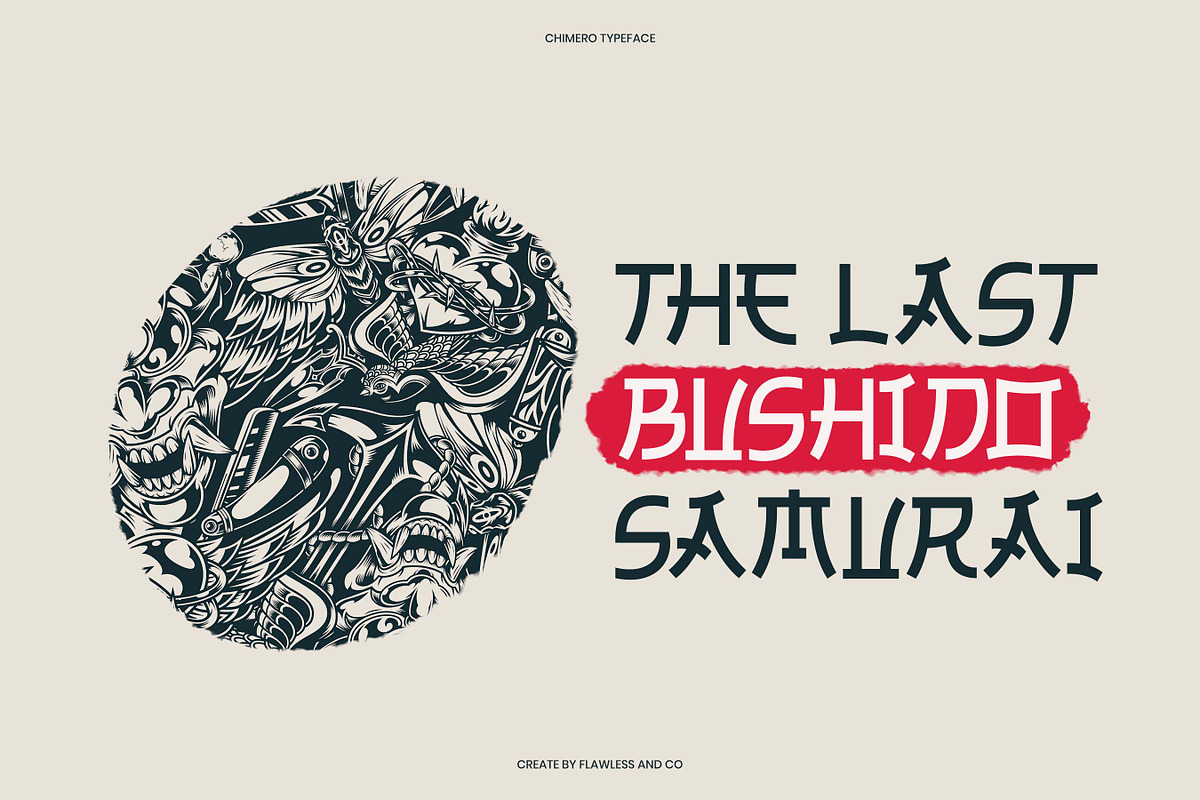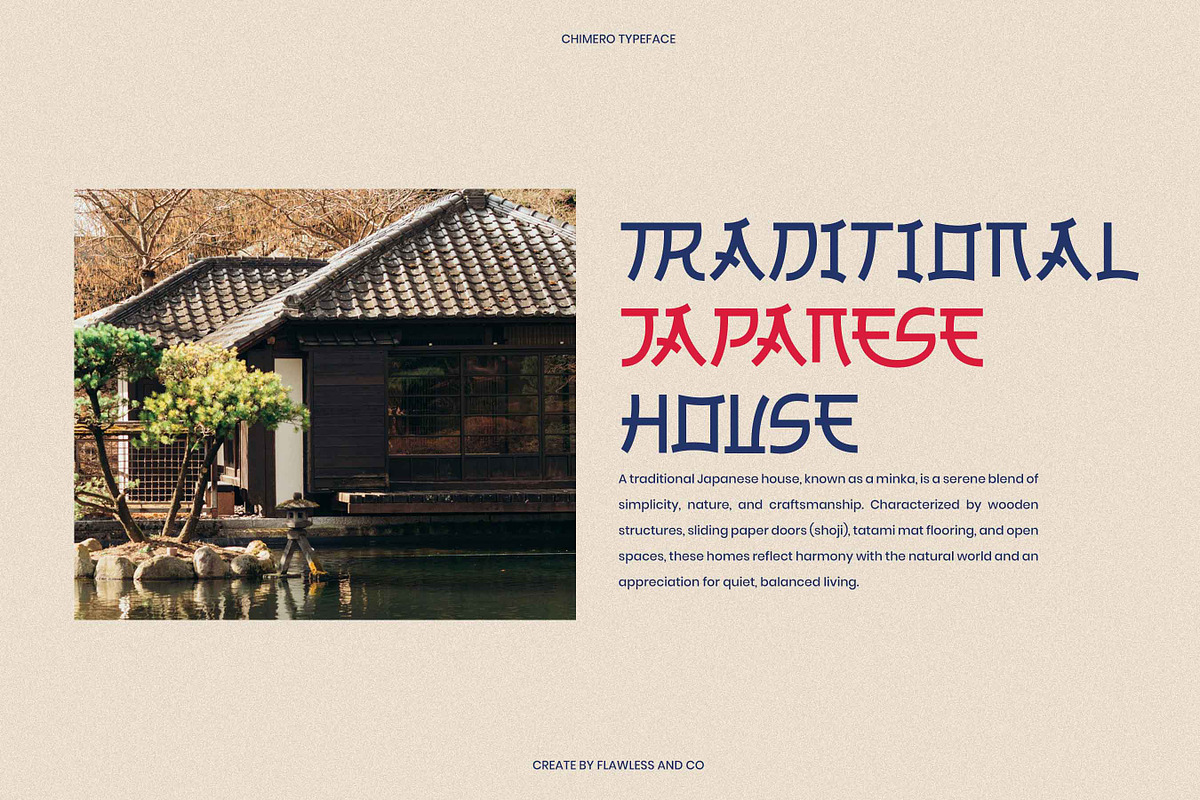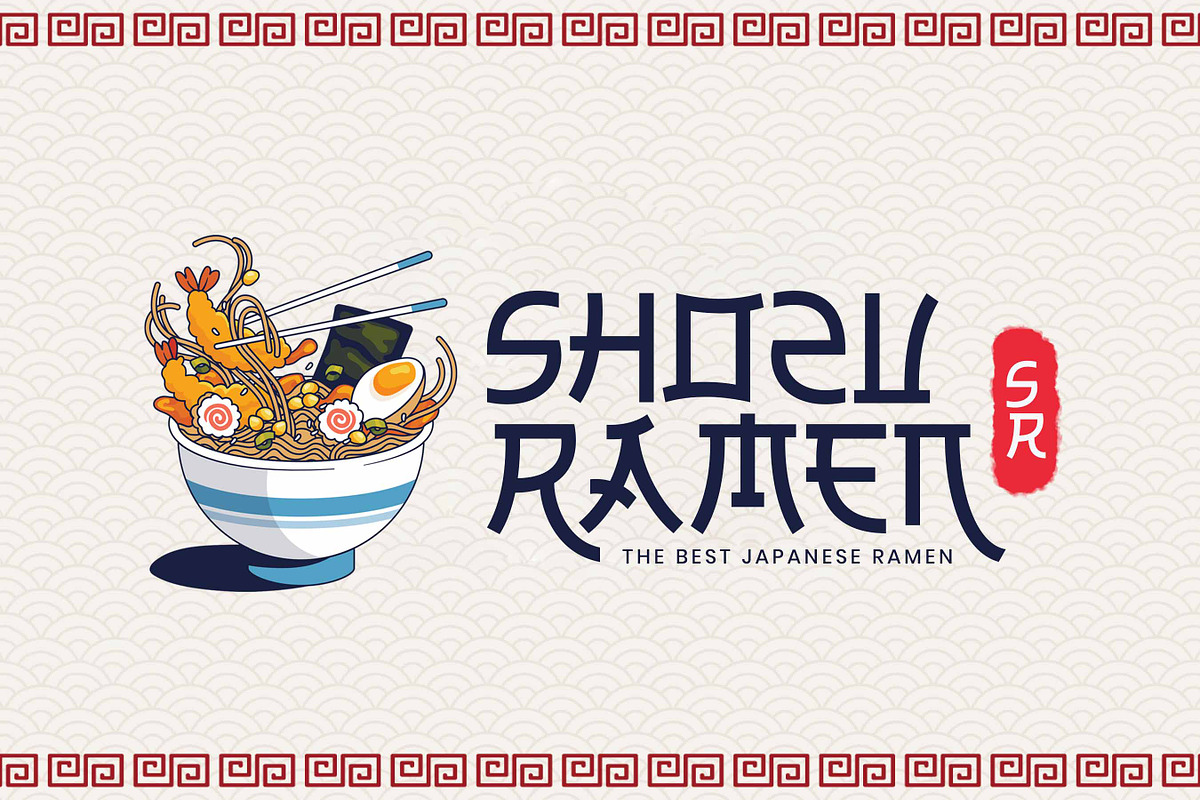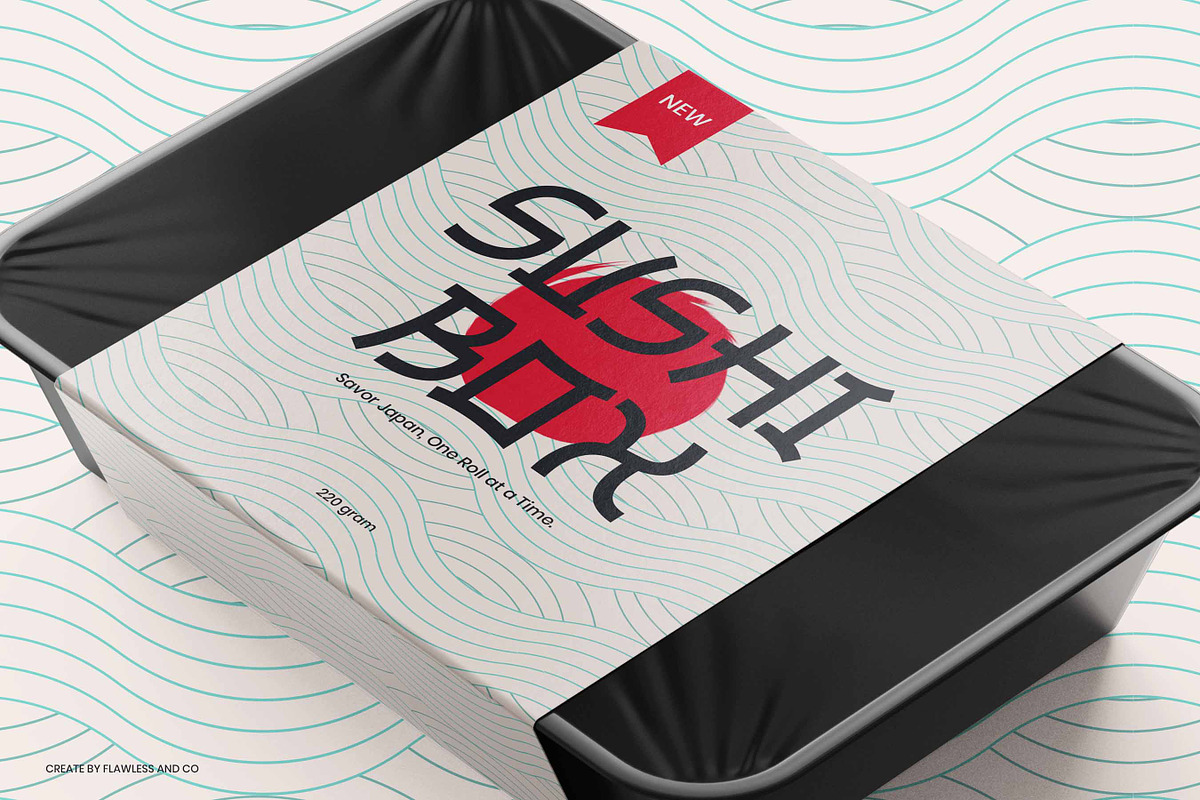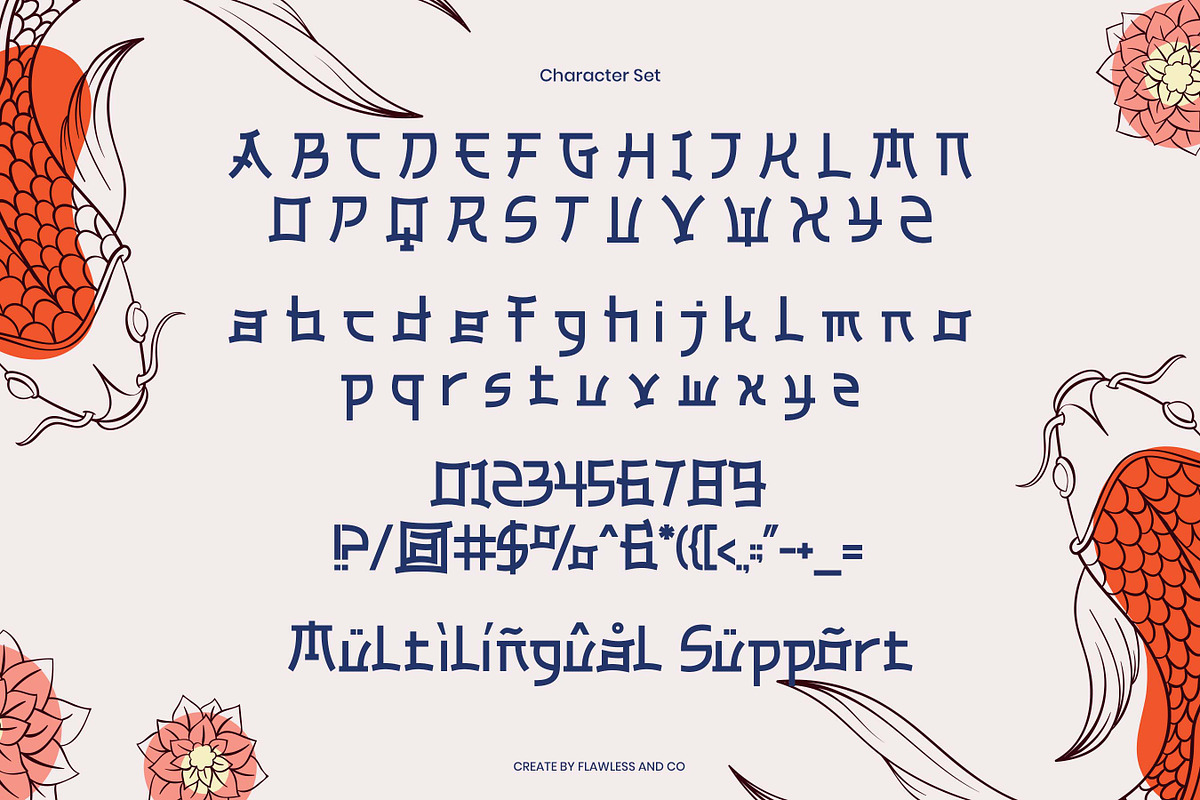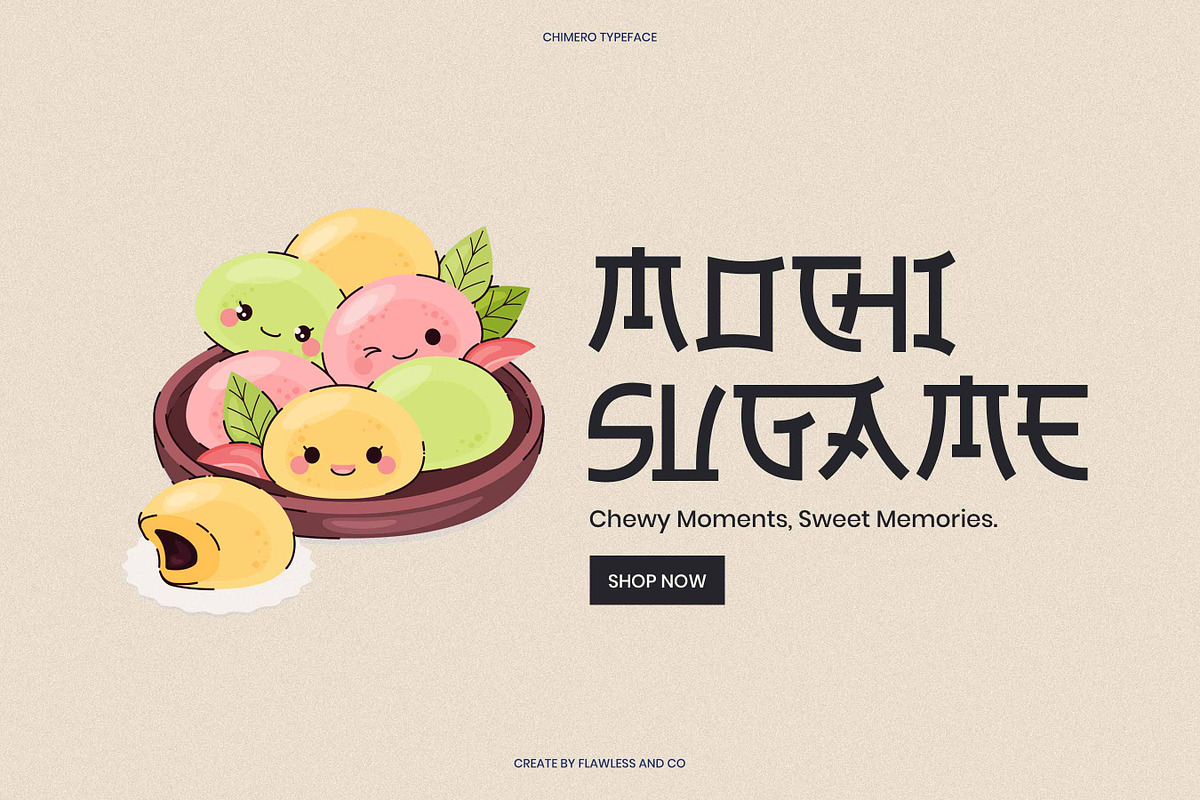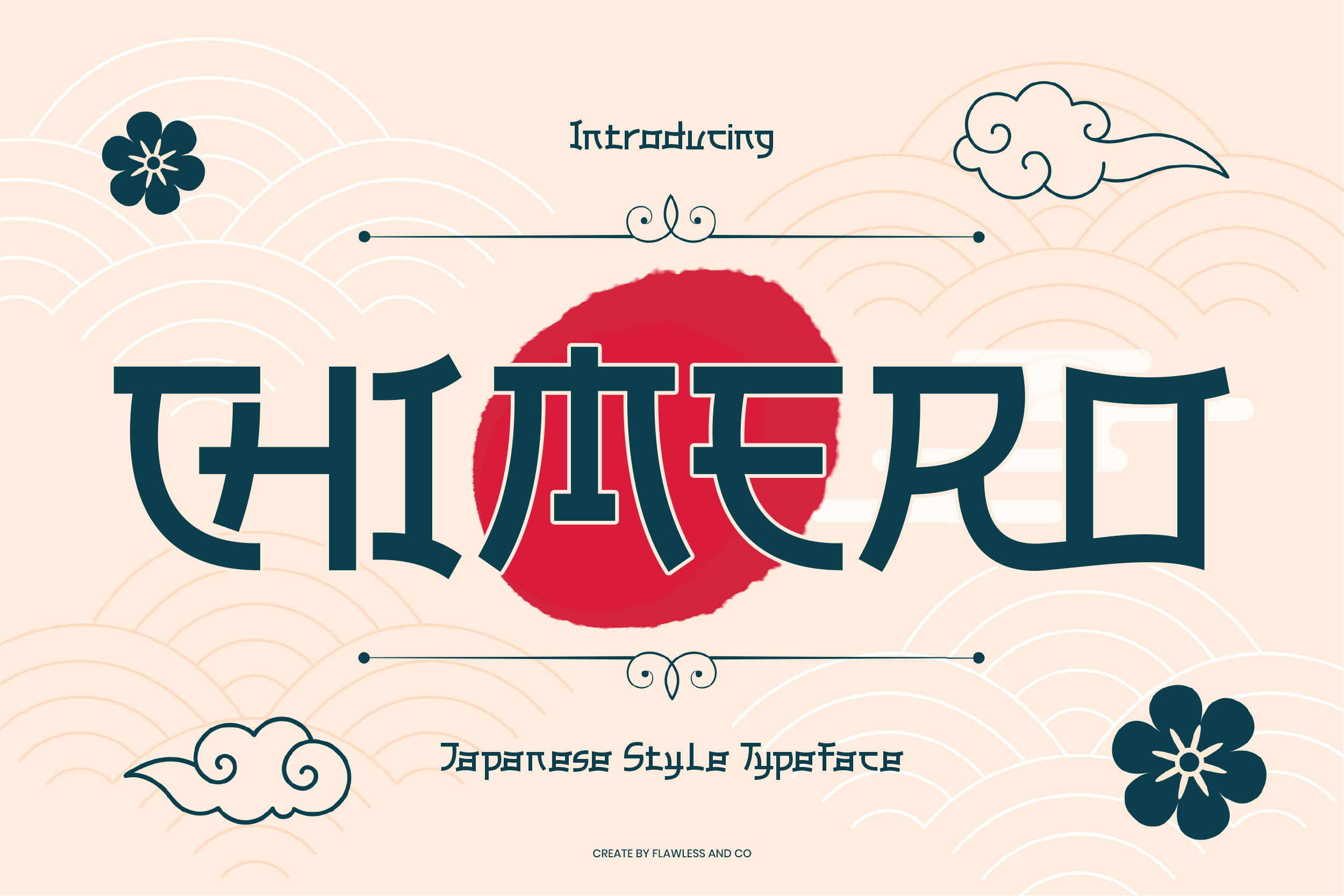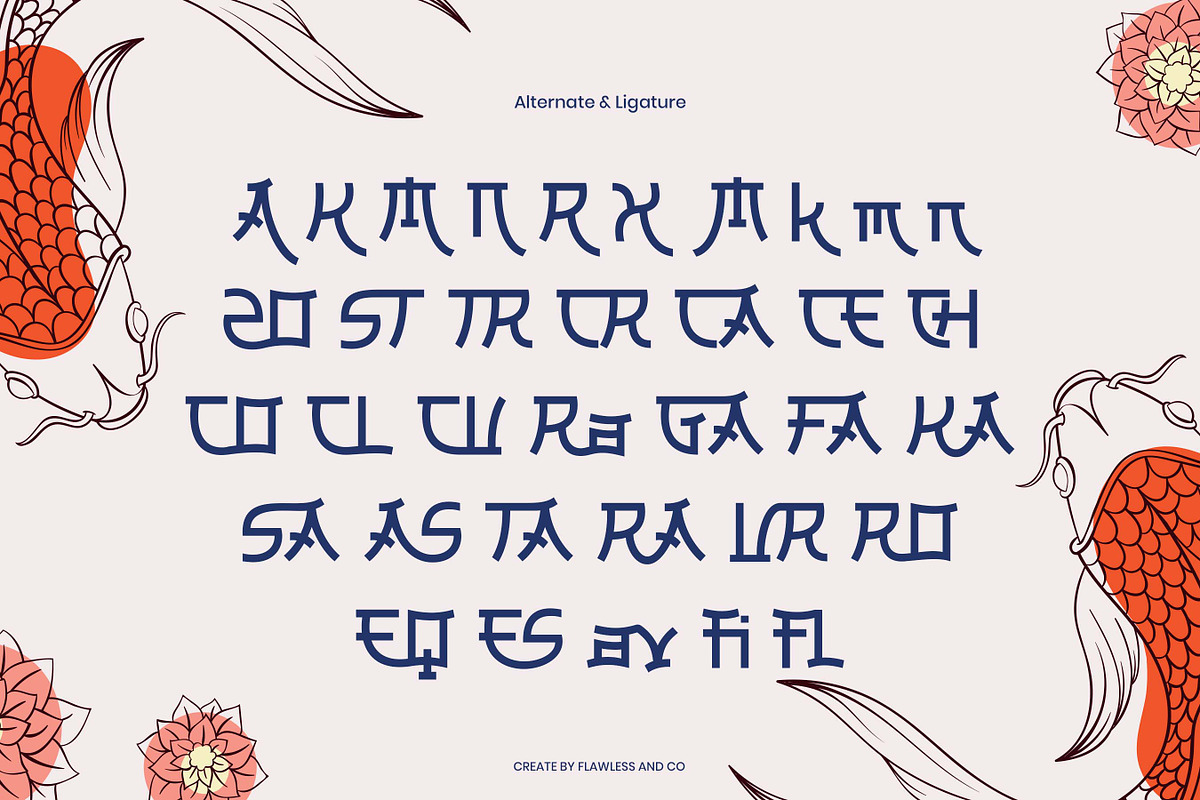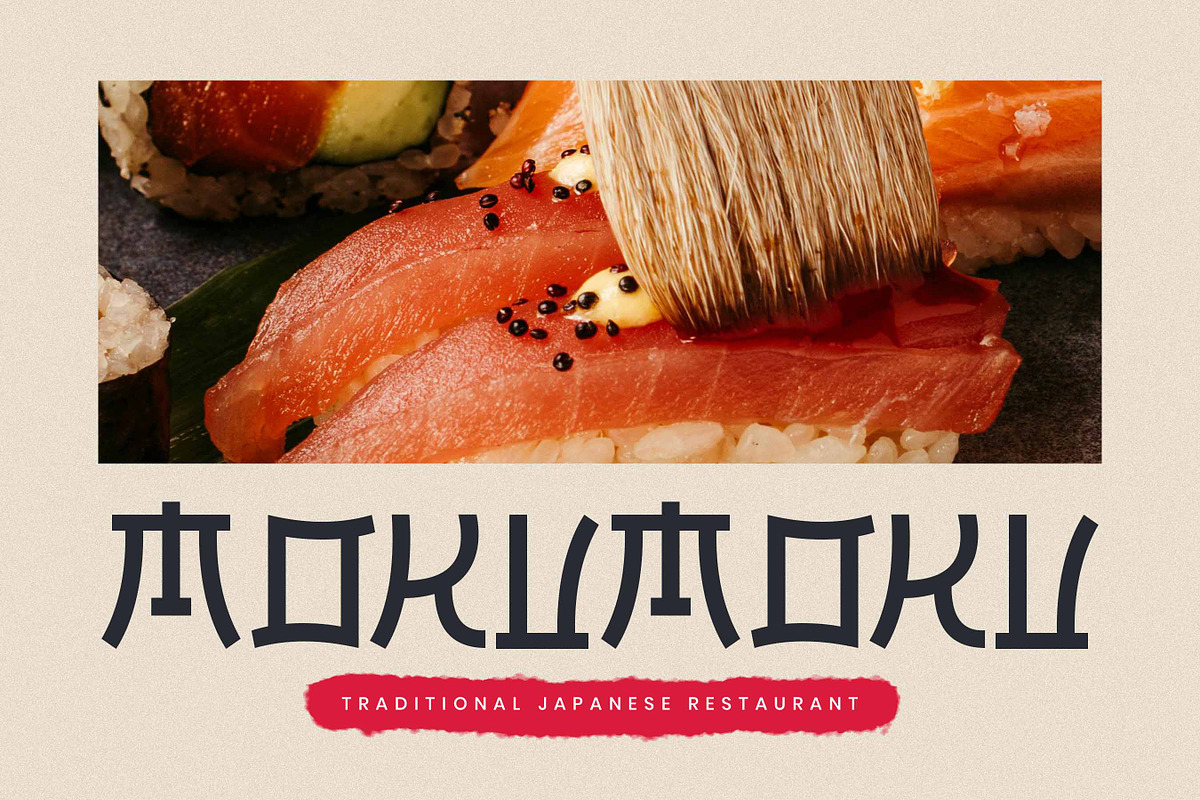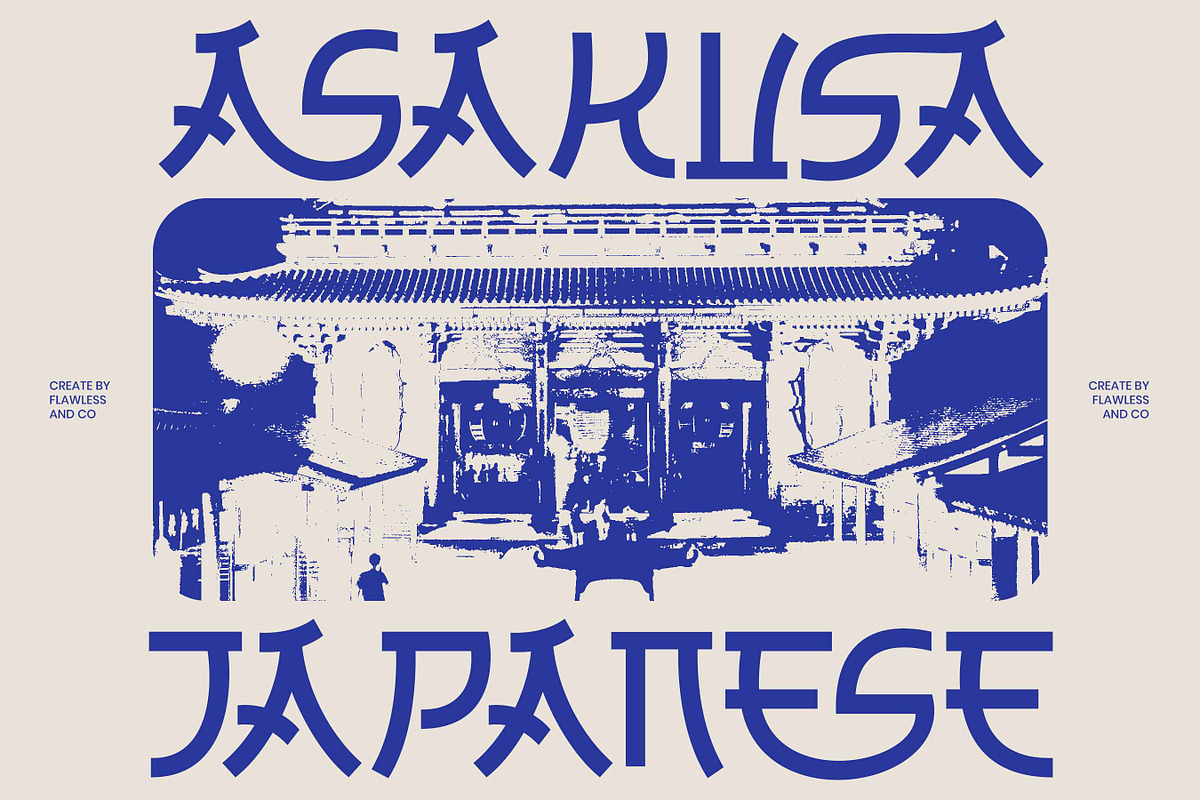
Chimero - Japanese Style Font
CHIMERO – Japanese Style Typeface
CHIMERO is a unique display font inspired by traditional Japanese aesthetics, crafted to bring cultural depth and visual intrigue to your designs. With sharp strokes and geometric balance, CHIMERO blends modern typographic structure with classic Eastern character shapes. Perfect for projects that seek to capture the spirit of Japanese design—such as menus, branding for Asian cuisine, apparel, logos, posters, or game interfaces—this typeface evokes a bold, authentic presence. Each letterform is a harmonious blend of strength and tradition, making your message feel both artistic and iconic.
- All Caps
- Punctuation & Numerals
- Clean, stylized outlines with cultural flair
Who Should Use CHIMERO?
CHIMERO is the perfect font for creatives, designers, and brands who want to infuse their work with Japanese-inspired aesthetics and cultural depth. Whether you're working on thematic visuals or modern interpretations of traditional art, CHIMERO offers a strong and stylish typographic voice.
This font is ideal for:
- Japanese restaurant and sushi bar branding
- Apparel and merchandise with an Eastern design influence
- Gaming titles and UI with samurai or anime-inspired themes
- Posters and event flyers for Asian cultural festivals
- Packaging for tea, ramen, or artisan goods
- YouTube thumbnails, travel vlogs, or content about Japan
Use CHIMERO when you want your designs to stand out with a blend of tradition, strength, and modern creativity.
A Must-Have Font for Brand Creators and Designers
CHIMERO is a unique Japanese-style typeface designed for creators who want to blend cultural flair with modern visual appeal. With its distinct strokes and East Asian-inspired forms, CHIMERO adds a strong identity to your designs—perfect for branding, logo design, restaurant menus, packaging, posters, or social media graphics with an Asian theme. Whether you're building a modern sushi brand, creating standout apparel with cultural nuance, or designing vibrant visuals for Japanese-themed events and festivals, CHIMERO helps you make a bold and authentic statement with style and character.
Why Choose CHIMERO for Your Projects?
CHIMERO brings a perfect balance of tradition and modernity, offering a distinctive Japanese-inspired look that stands out in any design. Its sharp, stylized letterforms evoke cultural depth and visual drama—ideal for projects that need both uniqueness and impact. Whether you're creating branding for a Japanese restaurant, apparel with an Eastern edge, or event visuals that celebrate Asian heritage, CHIMERO delivers authenticity, versatility, and strong visual appeal in one typeface.
Suitable For:
- Japanese restaurant branding & packaging
- Asian-themed logo design
- Apparel and merchandise with cultural style
- Festival & event posters
- Social media graphics with Japanese flair
- Creative headlines and editorial layouts
- Anime, gaming, or manga-inspired visuals